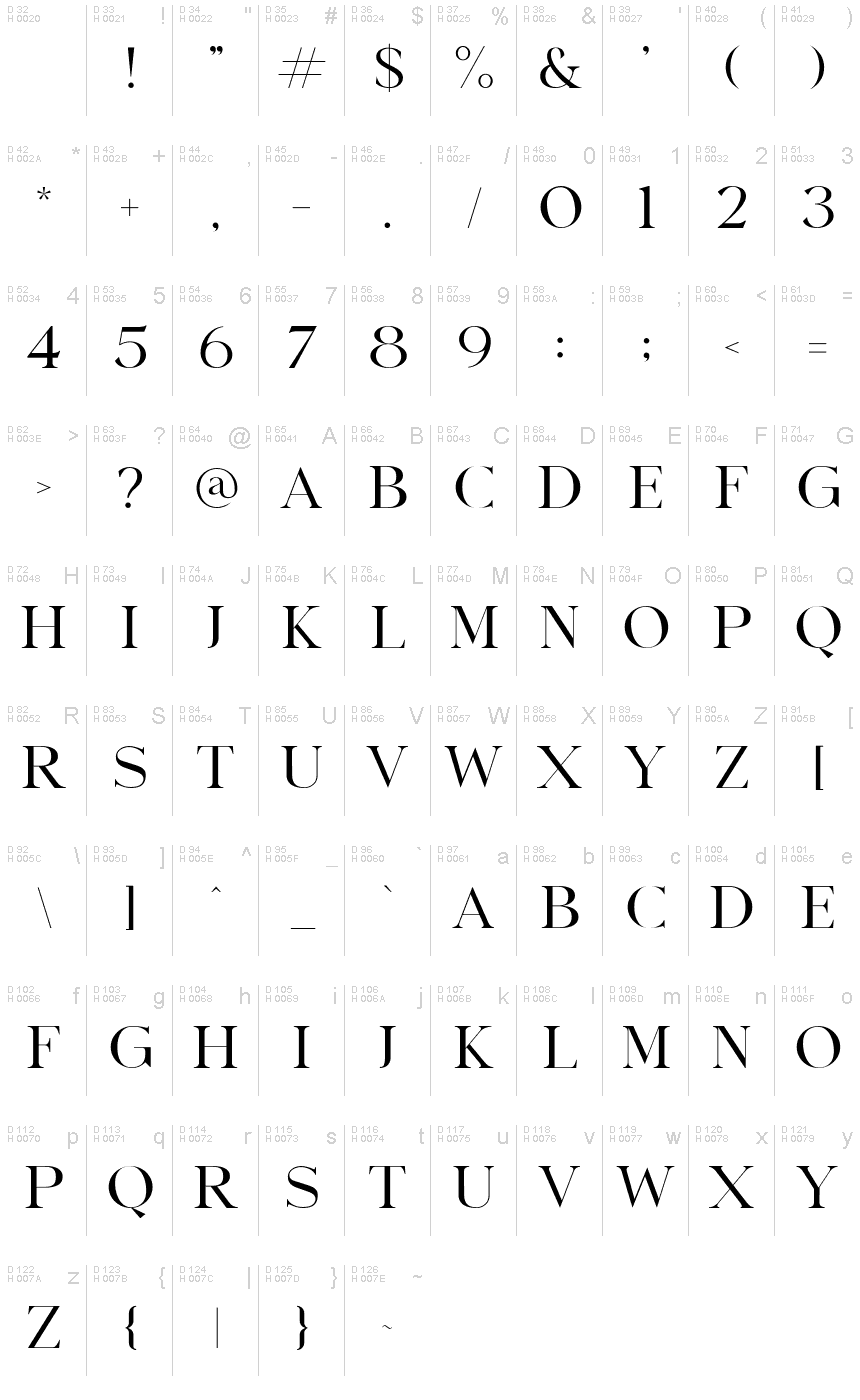
Karenz
Karenz, a serif font crafted by Dwi Sulistyono, exudes a distinctive elegance with its semi-light weight and sophisticated structure. The font strikes a balance between traditional serifs and contemporary flair, making it exceptionally versatile for various design purposes. Its subtlety in weight adds a touch of finesse to the overall aesthetic, allowing it to convey messages with both clarity and style.
The typeface's serifs are designed with meticulous attention to detail, giving Karenz an air of professionalism that is perfect for editorial work, branding, and upscale marketing materials. The graceful lines and uncluttered appearance suggest a modern sensibility that can enhance the visual narrative of any project.
Whether used in digital formats or print mediums, Karenz has the potential to elevate the visual impact of your creative endeavors. Its suitability spans from sophisticated publications to minimalist web designs, proving that this font is not only pleasing to the eye but also highly functional across diverse applications.